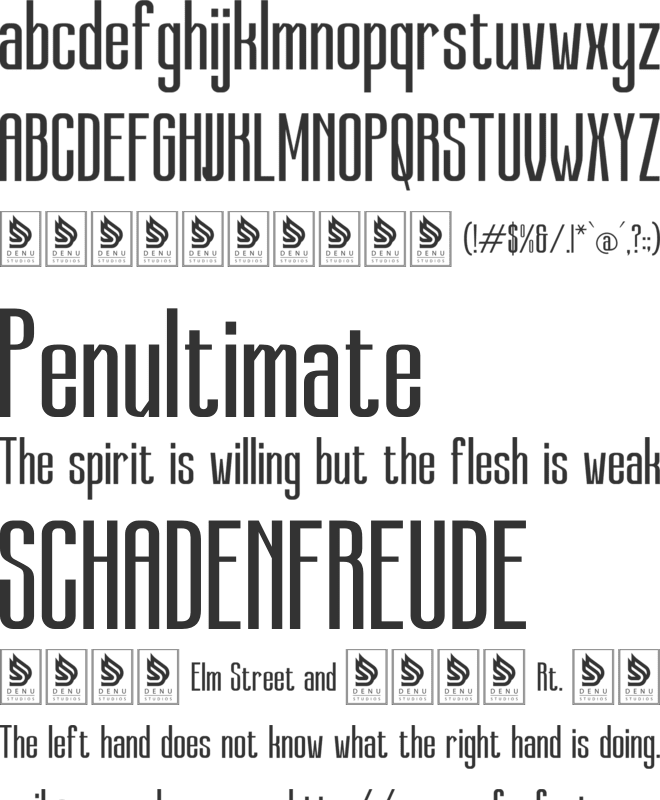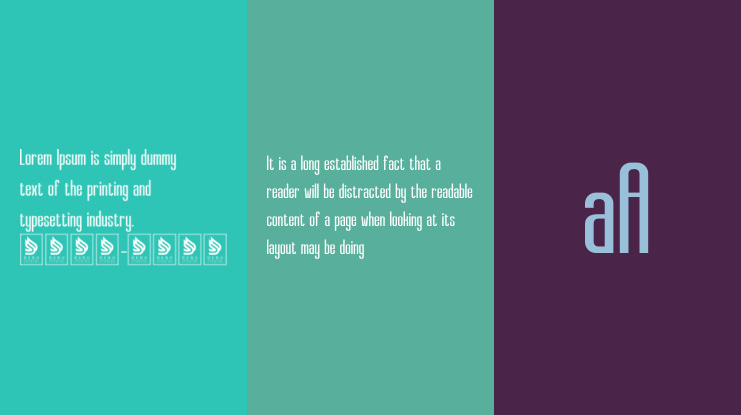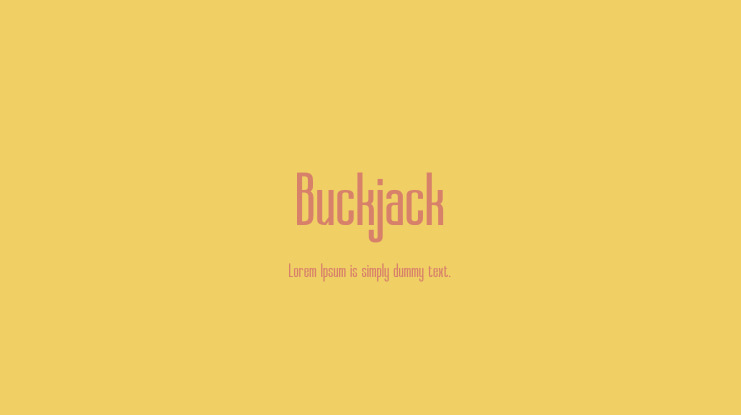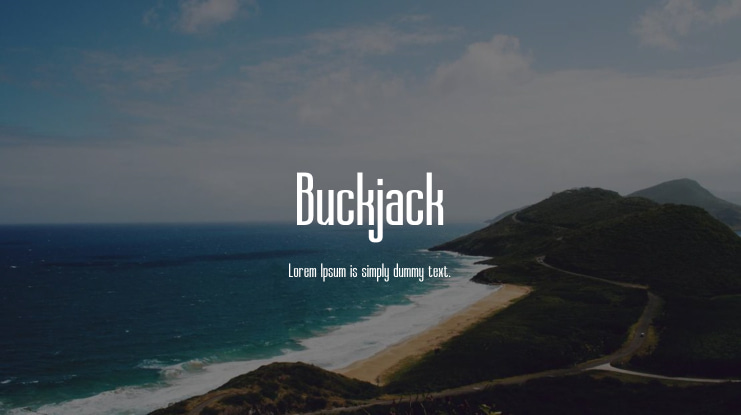
Buckjack | Condendsed Sans Serifis suitable for any projects such as: logos, branding projects, homeware designs, product packaging, mugs, quotes, posters, shopping bags, t-shirts, book covers, name card, invitation cards, greeting cards, label, photography, watermark, special events, and all your other lovely projects that need a Condendsed Sans Serif taste.